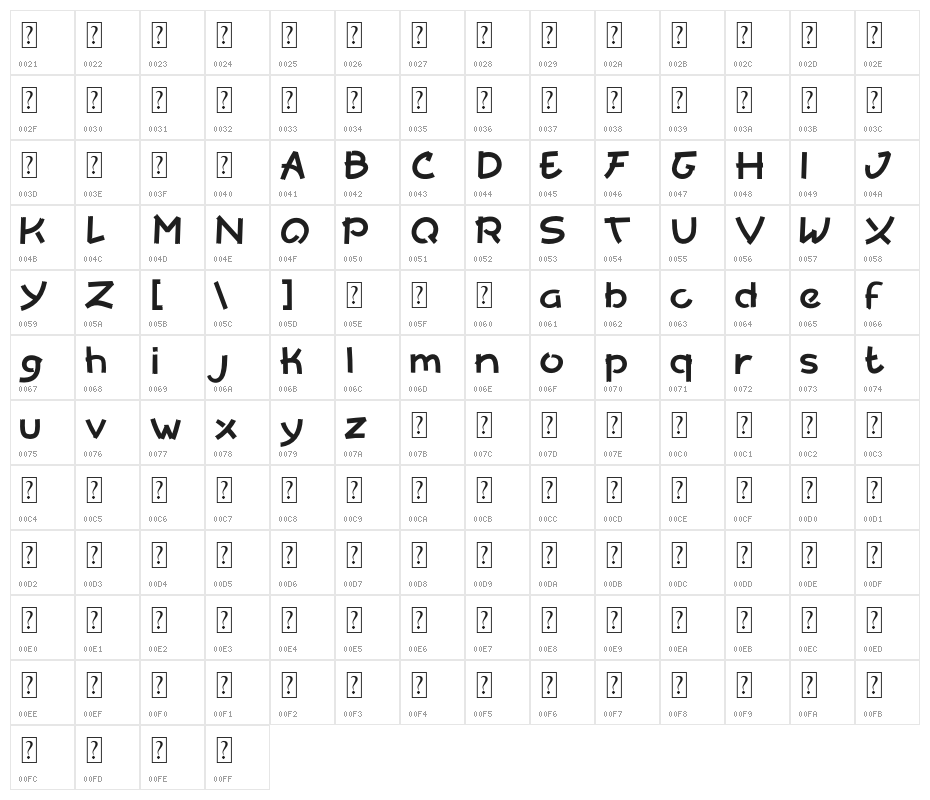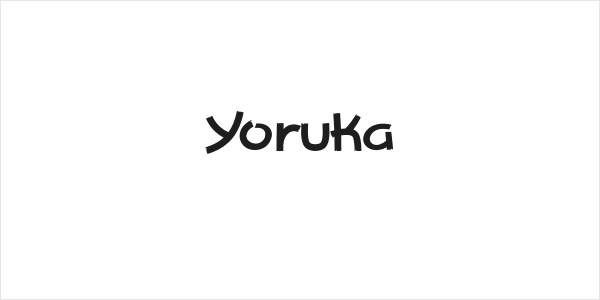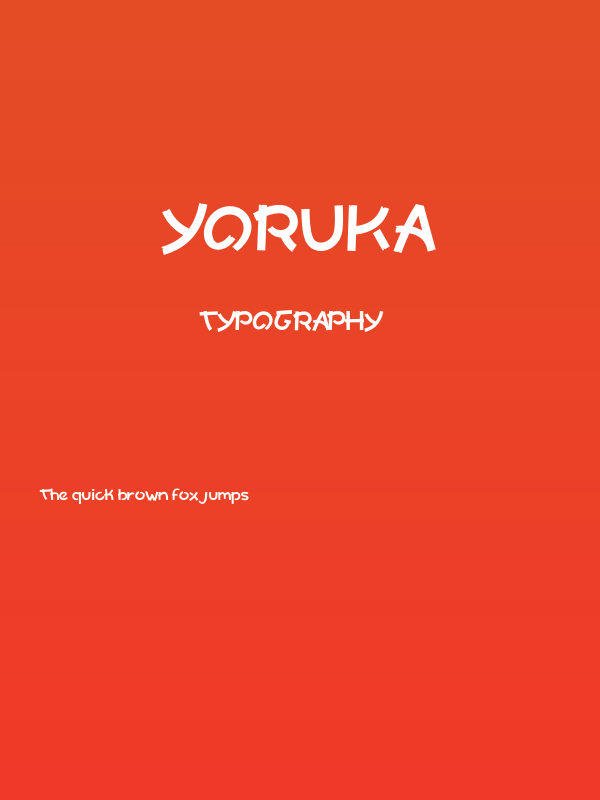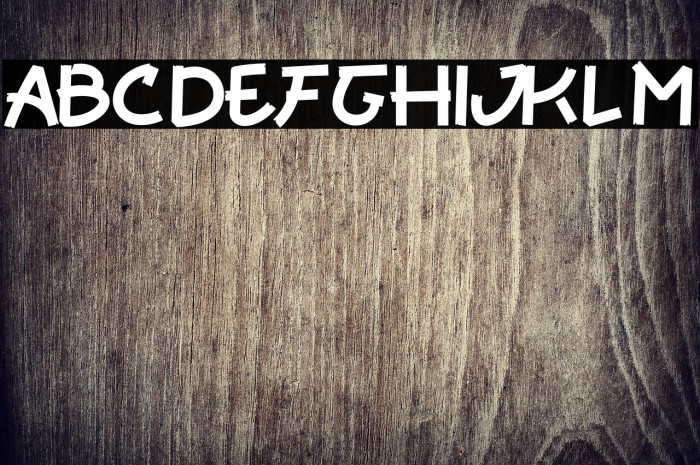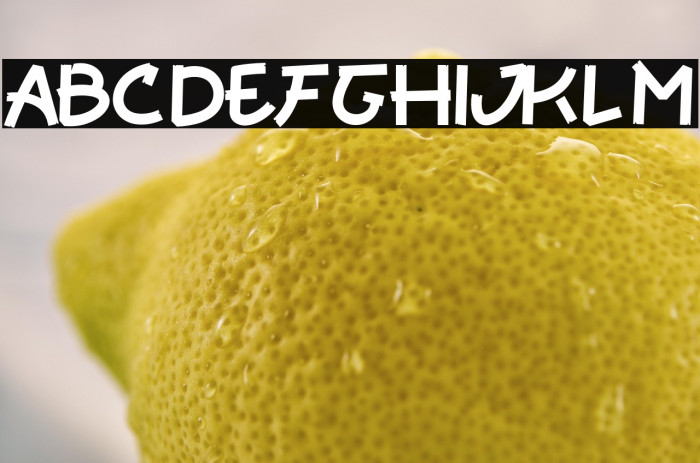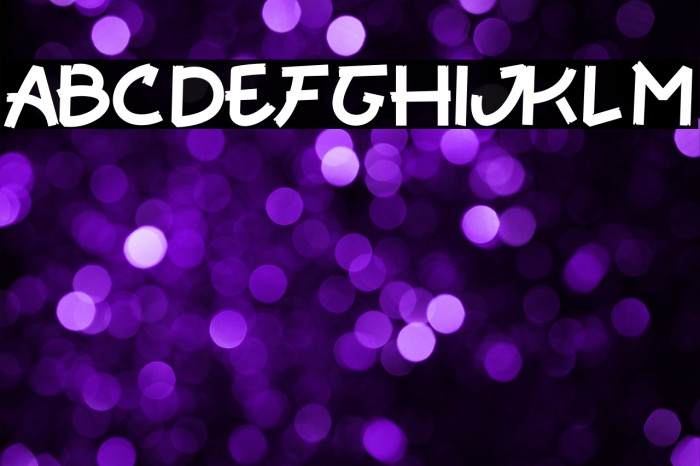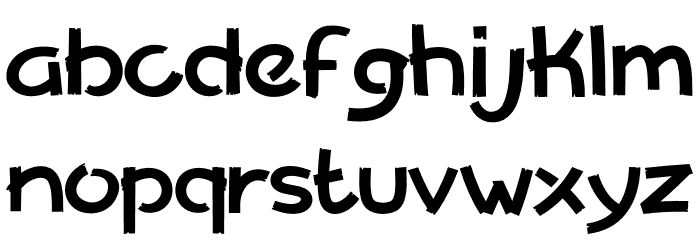
Yoruka Font
Yoruka Description
This font features a playful and dynamic style with a handwritten appearance. The characters are bold and slightly irregular, giving them a casual and friendly feel. The strokes are thick and consistent, with a slight tilt that adds to the informal look. The uppercase and lowercase letters maintain a cohesive design, while the overall structure is robust and easy to read. The font lacks special characters, focusing on a straightforward alphabet presentation.
YORUKA UPPERCASE
YORUKA LOWERCASE
YORUKA OTHER CHARS
| Overall Style | Playful, Casual |
| Proposed Projects | Ideal for children's books, playful branding, casual invitations, and creative posters. |